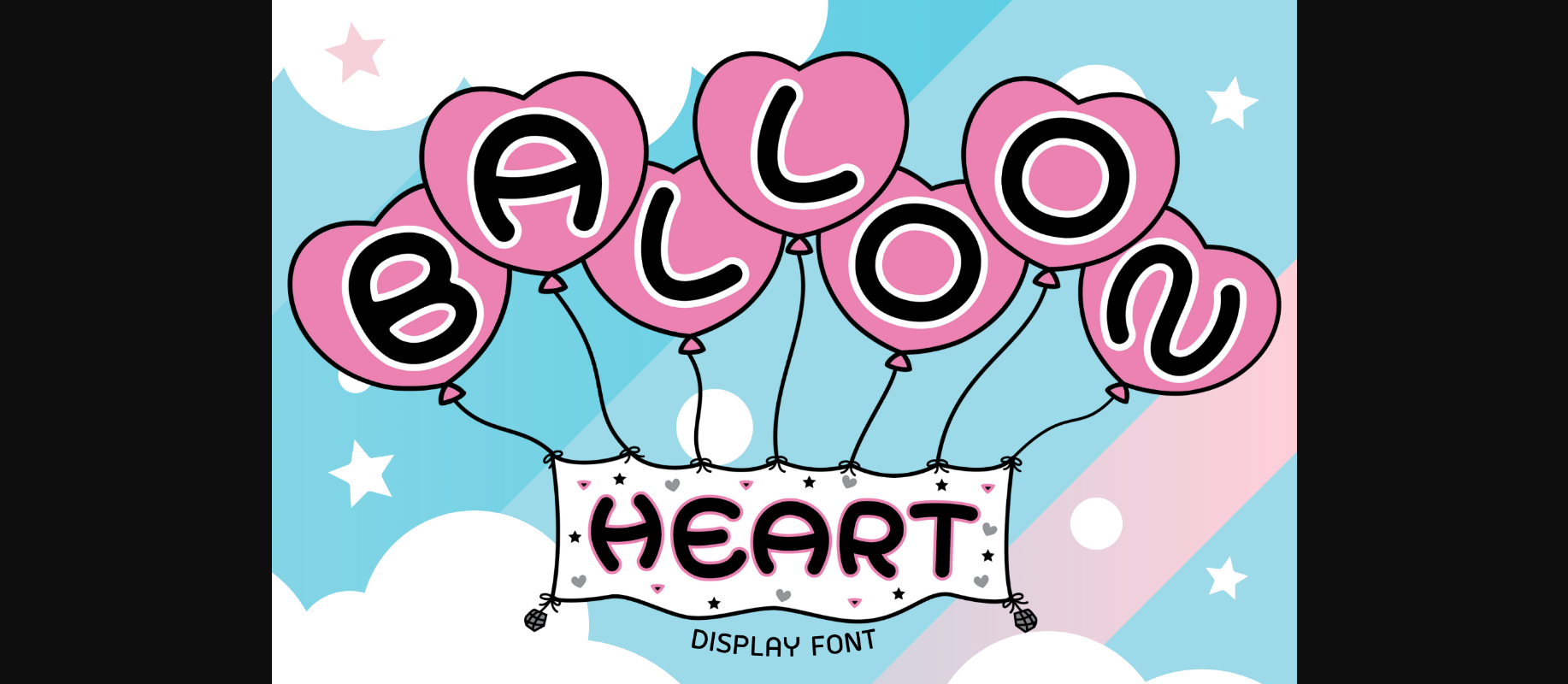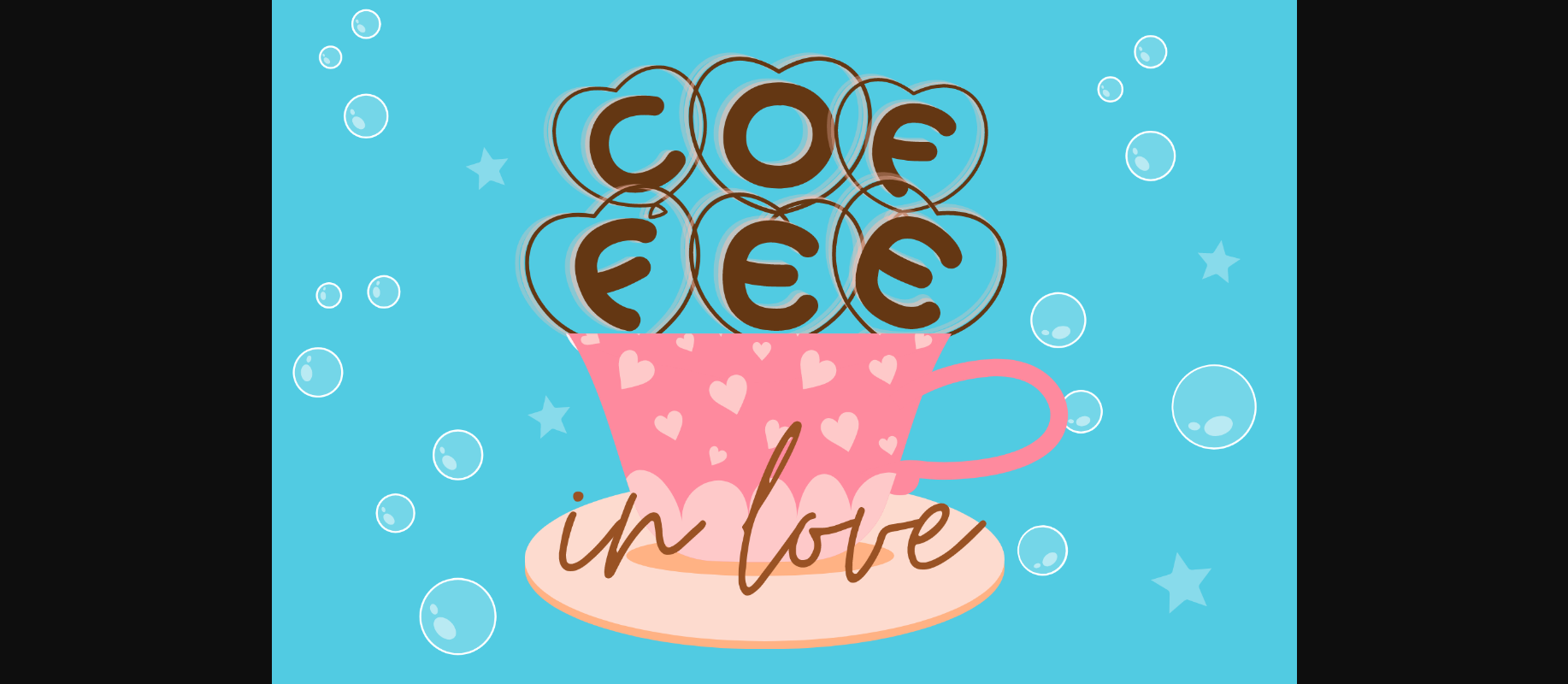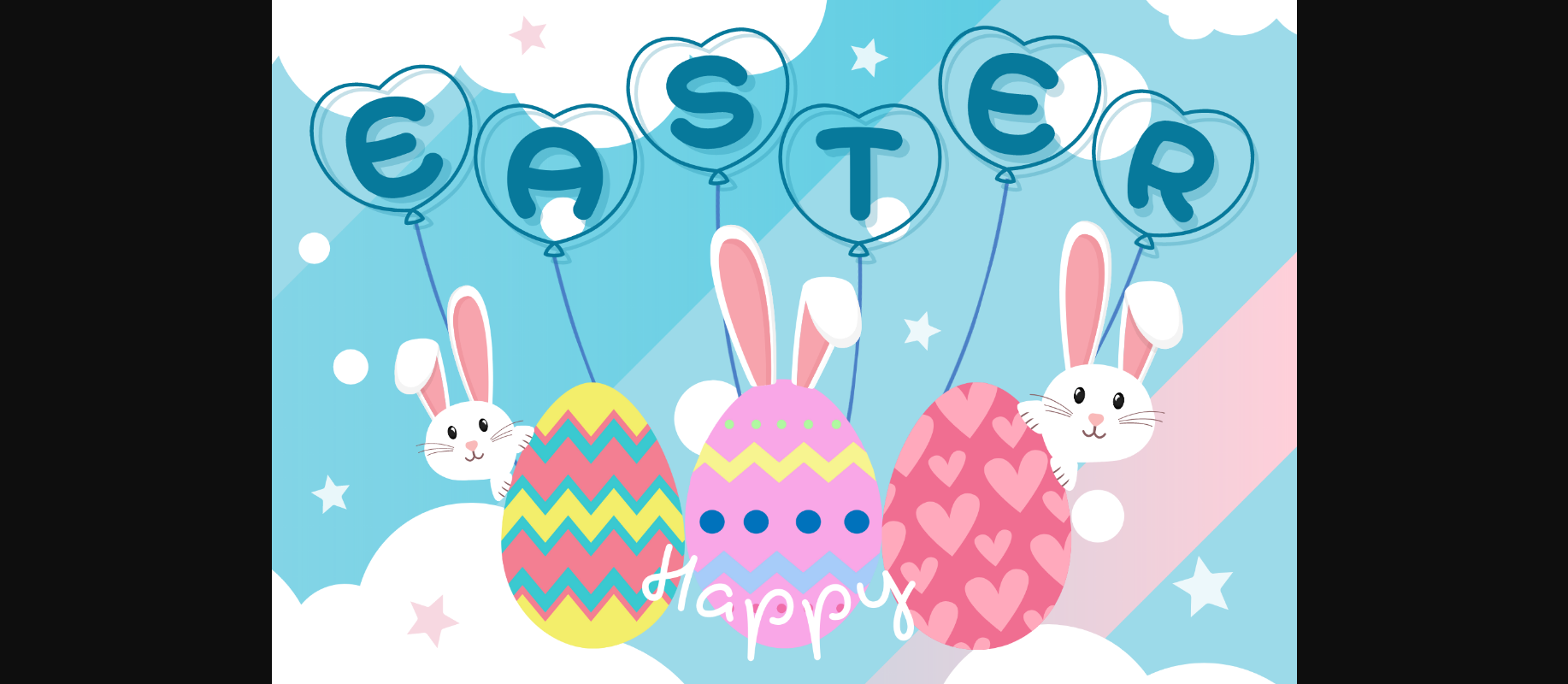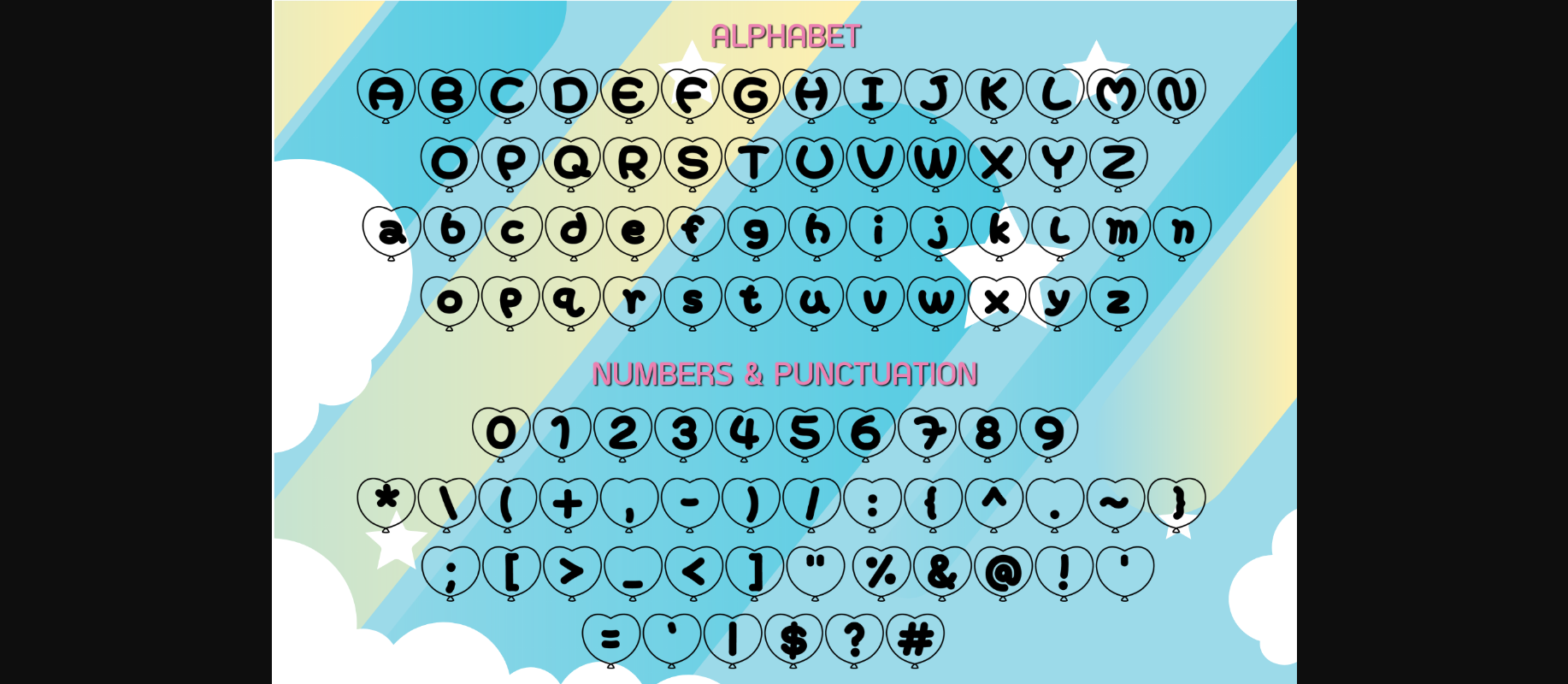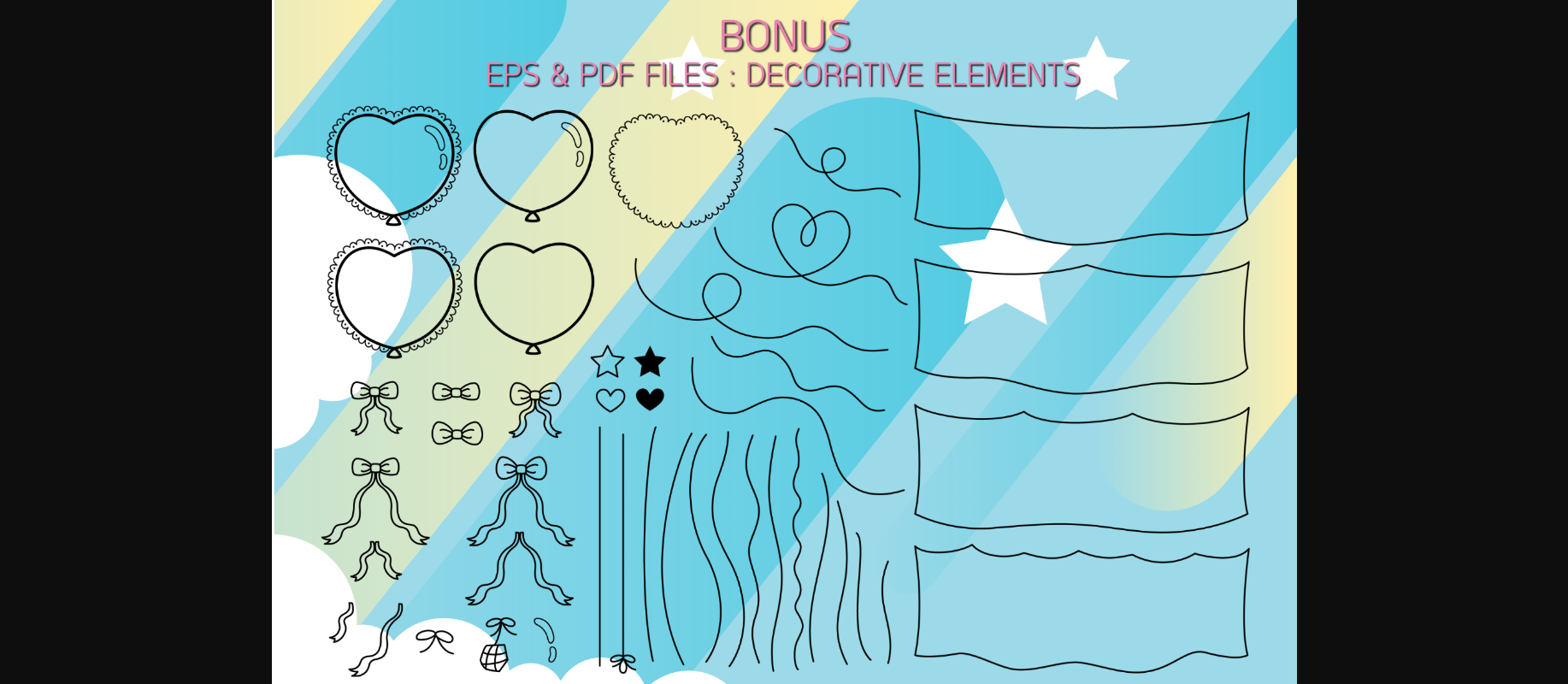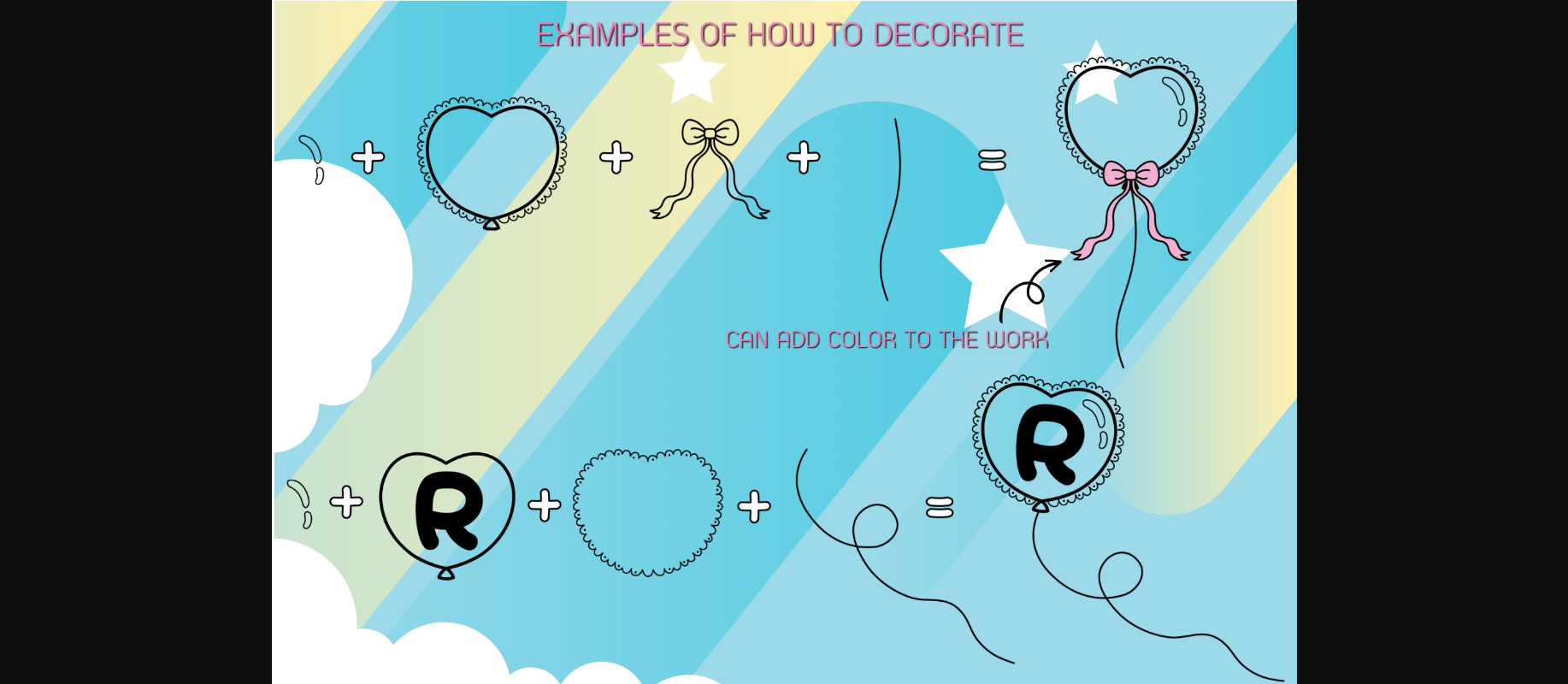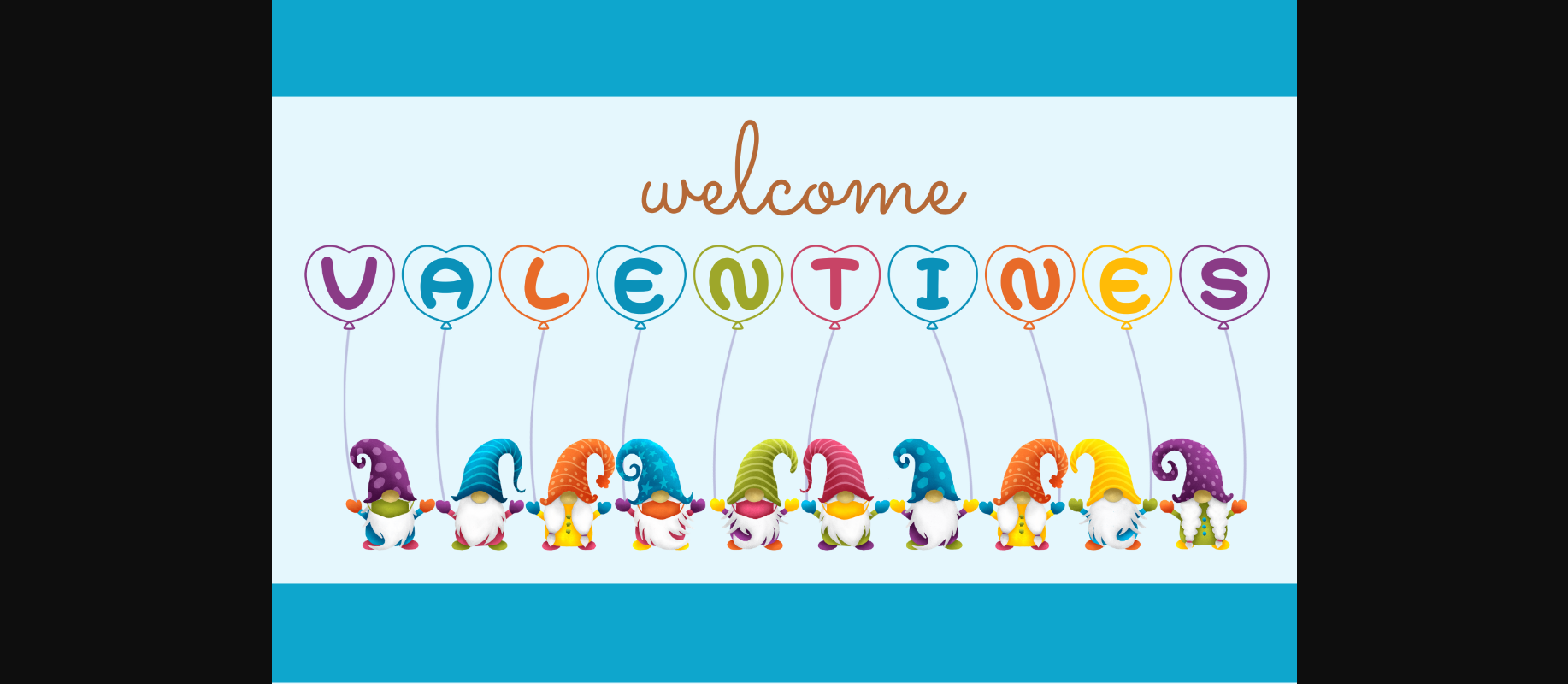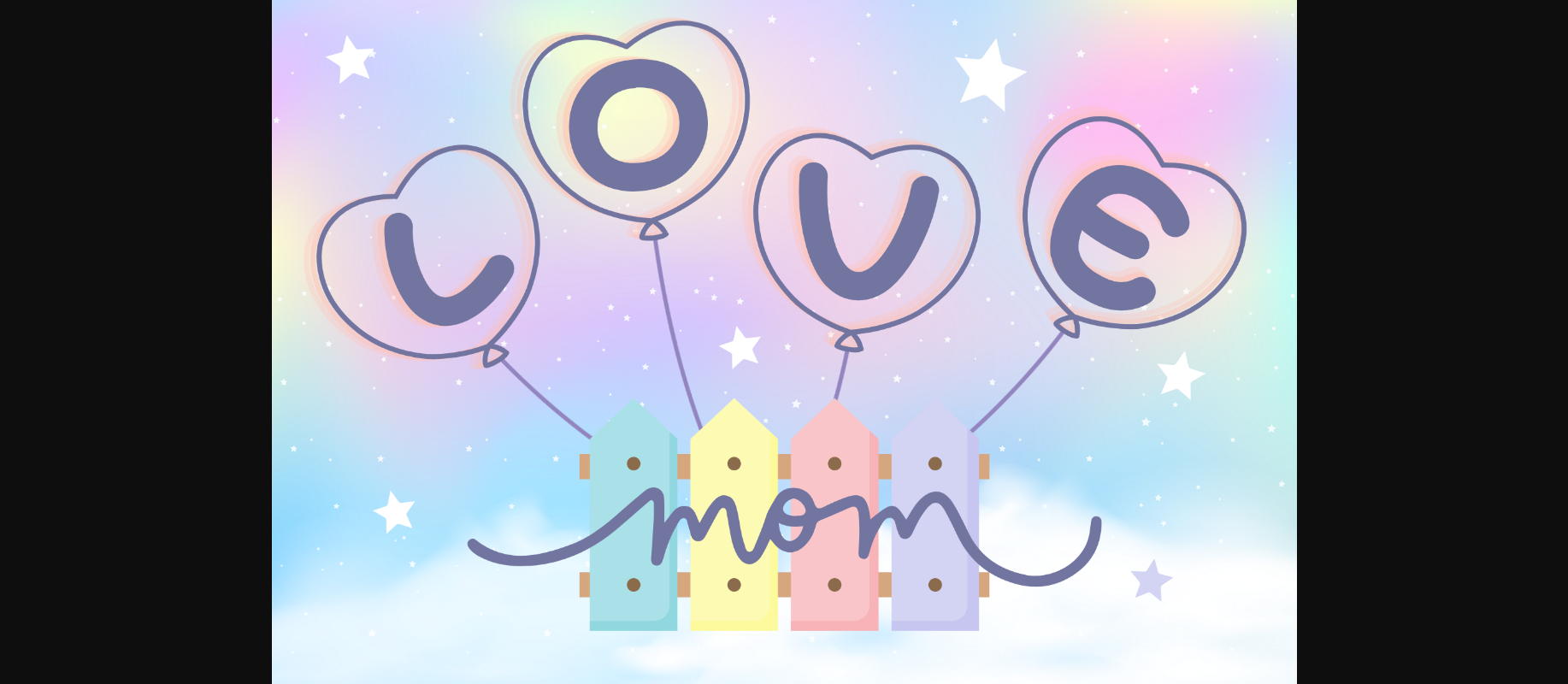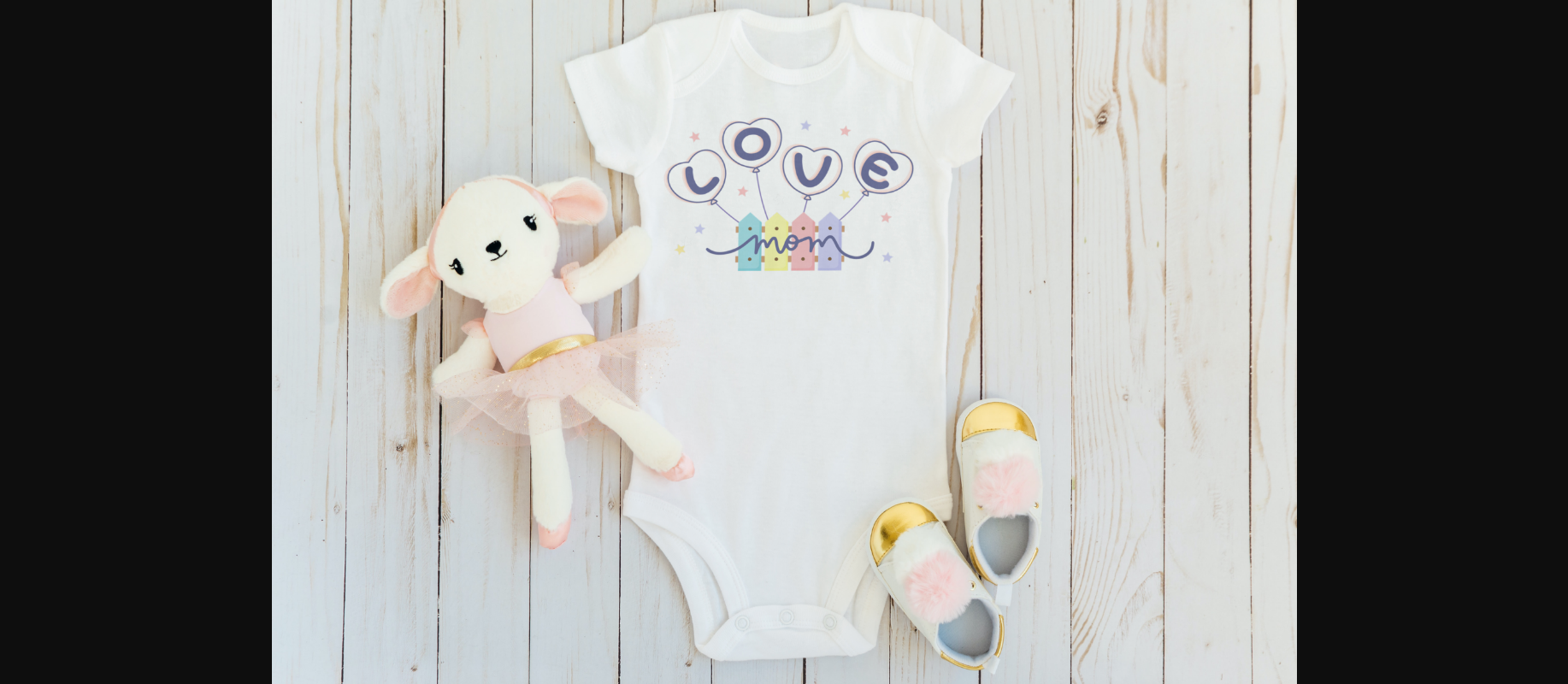
Balloon Heart Font
About Balloon Heart Font
Balloon Heart is a lovely and fun decorative display font. Its cheerful and bright personality is perfect for birthday party invitations, posters, decorations, banners, and more!